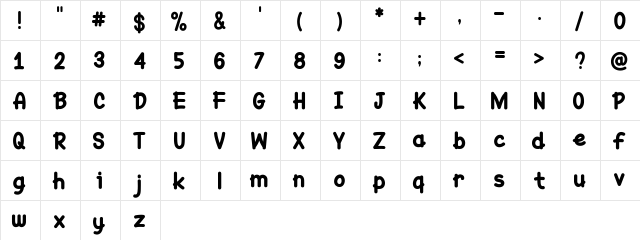
Yellow Cat Regular
| Foundry | Polah |
| Designer | Polah |
Design Context for Yellow Cat Typeface
Yellow Cat offers clean, dependable letterforms without strong stylistic allegiance, making it a practical choice for designers who need flexibility.